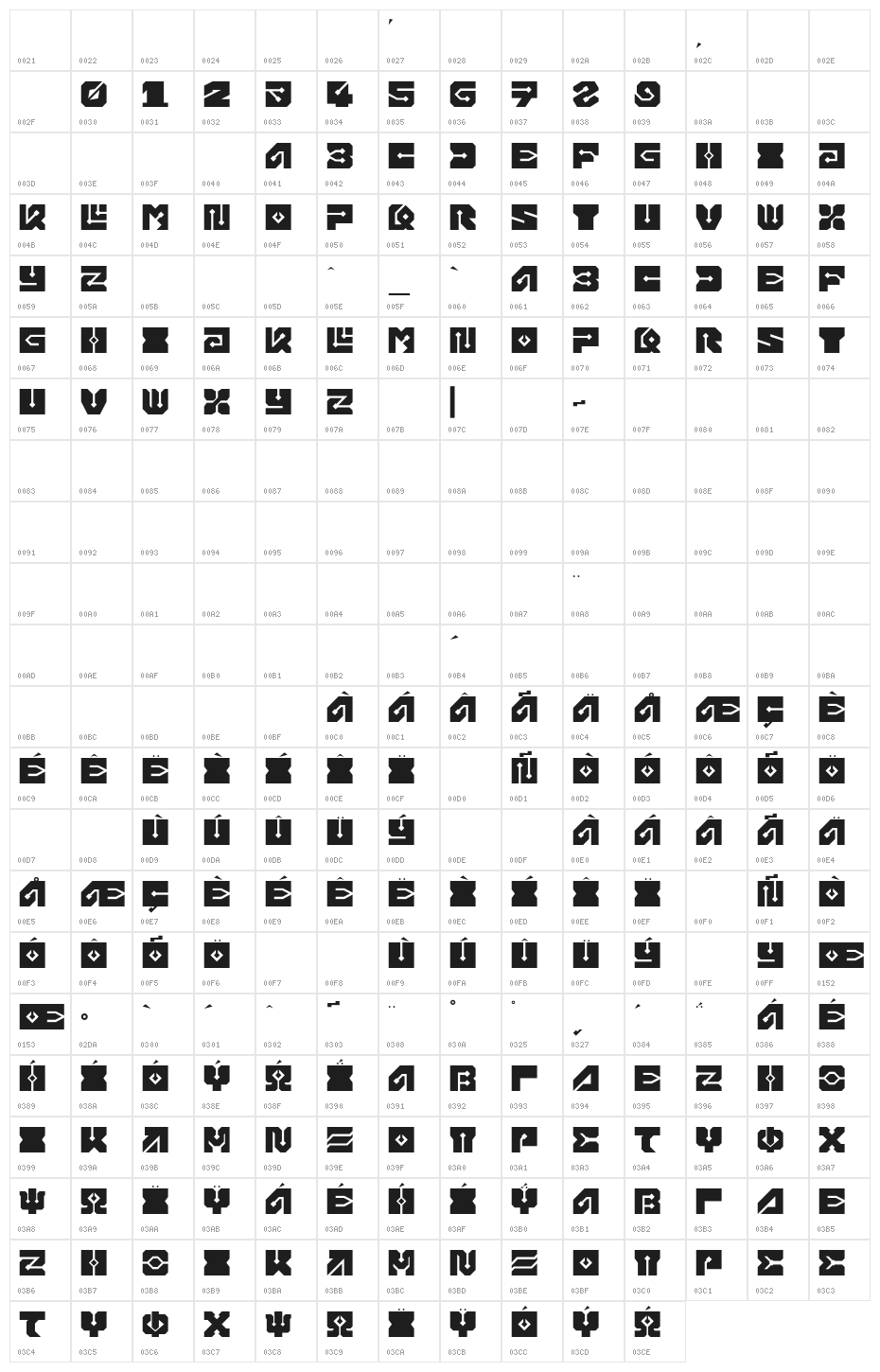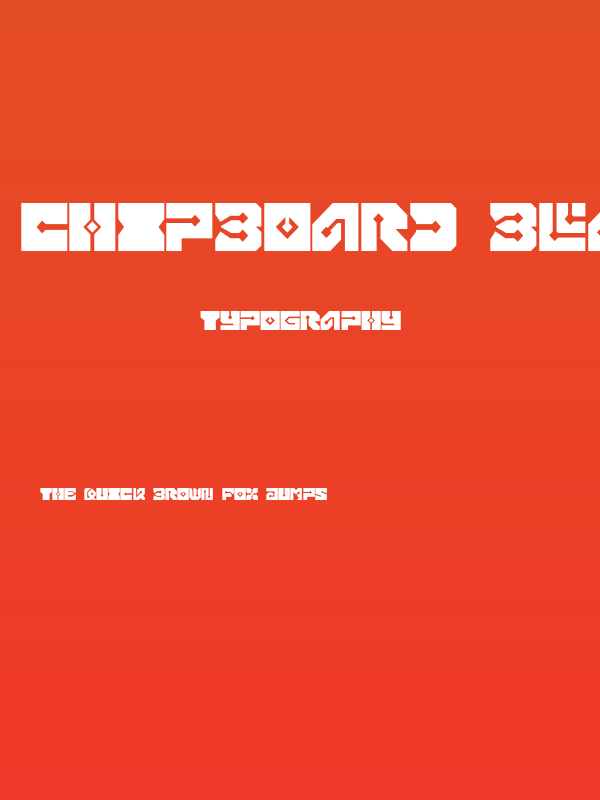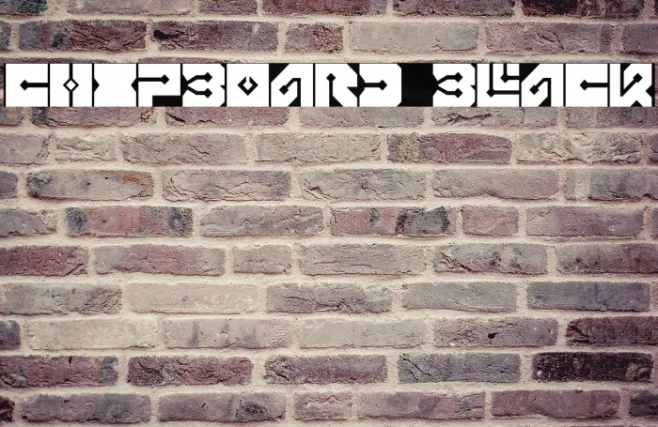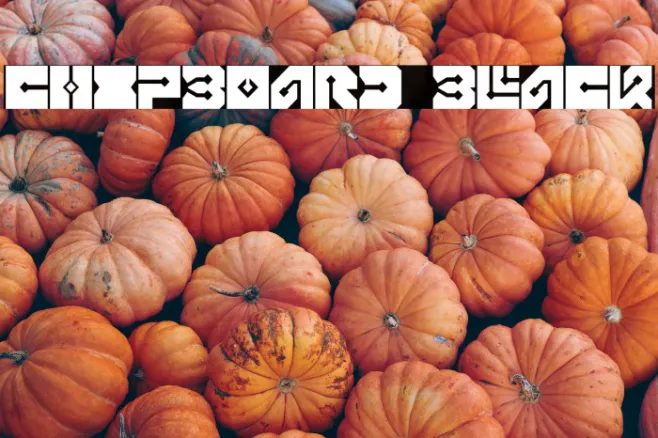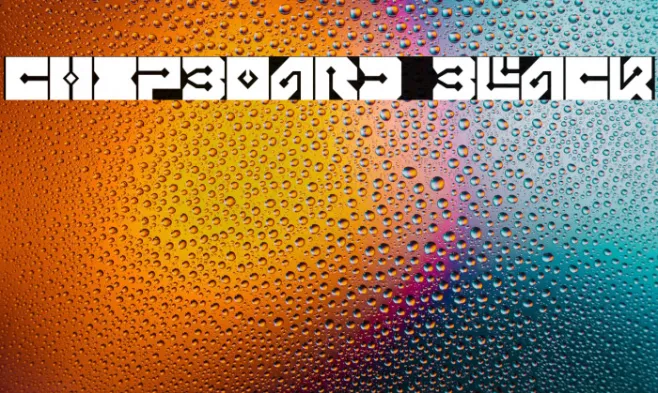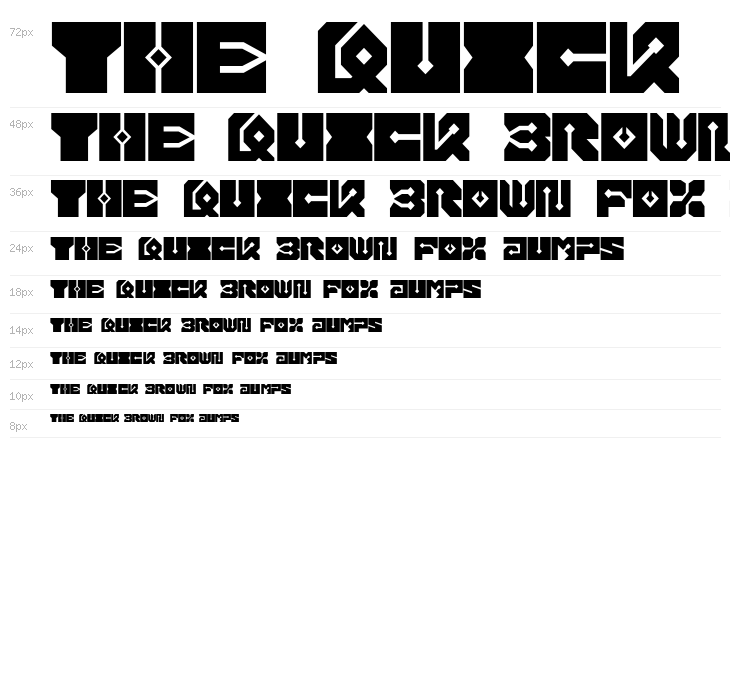
Chipboard Black Font
Chipboard Black Description
This bold and striking font features a geometric and blocky design, characterized by its thick, angular strokes and sharp edges. The letters are constructed with a consistent width, creating a uniform appearance across both uppercase and lowercase characters. The font includes unique decorative elements within certain letters, adding a touch of flair and distinctiveness. Its solid, heavy appearance makes it ideal for impactful and attention-grabbing designs. The numbers and special characters maintain the same bold style, ensuring cohesion throughout the typeface.